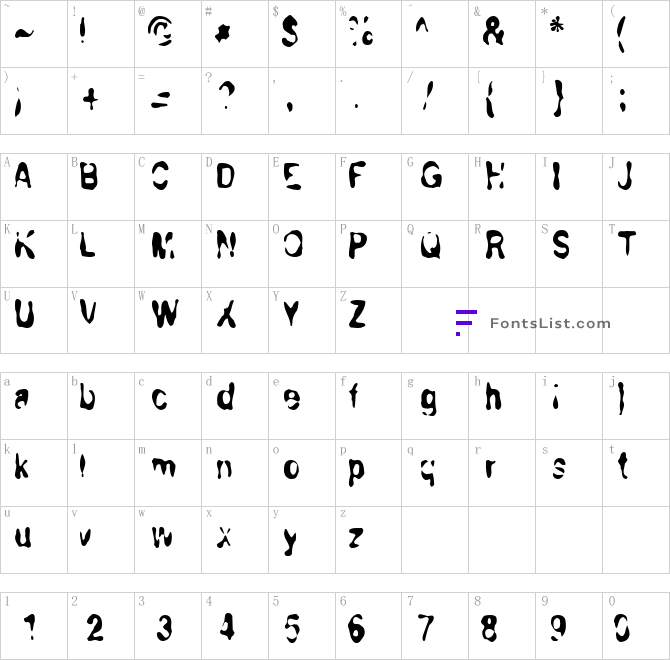
- Font Name:Alien Argonaut AOE
Alien-Argonaut-AOE.ttf is a very beautiful artistic font, Alien-Argonaut-AOE.ttf is widely used in the design and printing of various books and pictures,Alien-Argonaut-AOE.ttf has a strong visual impact,Alien-Argonaut-AOE.ttf is a commonly used font in newspapers, magazines and books, and is used in posters, e-commerce Poster design, store design, logo design, font design and other fields.Alien-Argonaut-AOE.